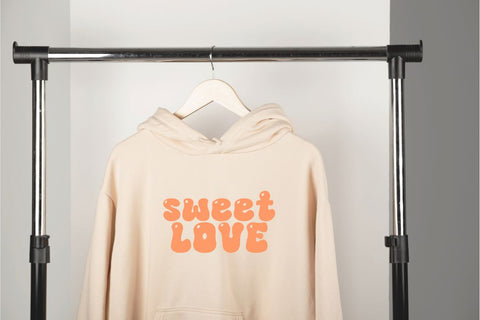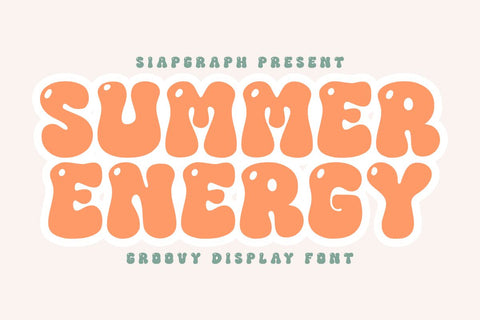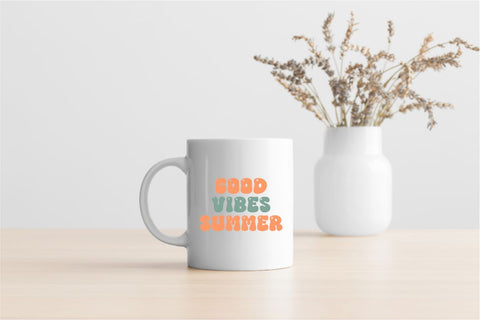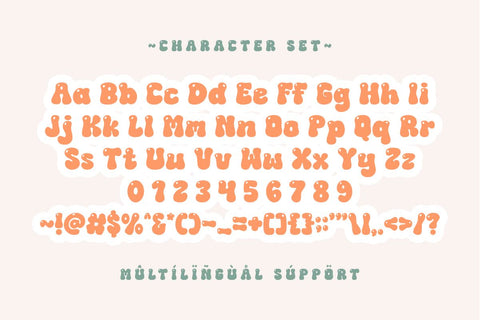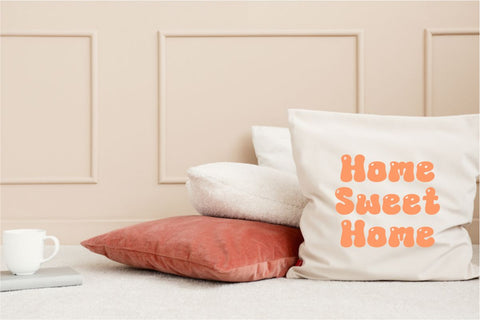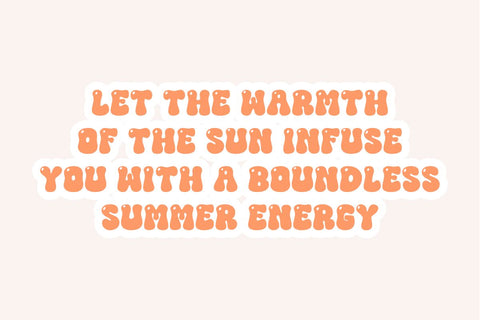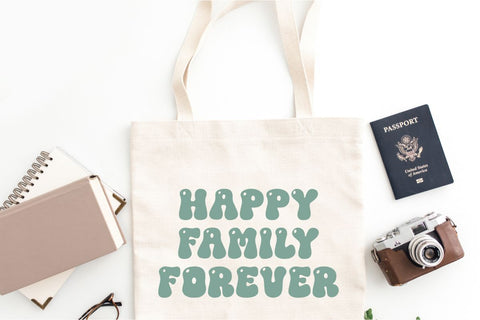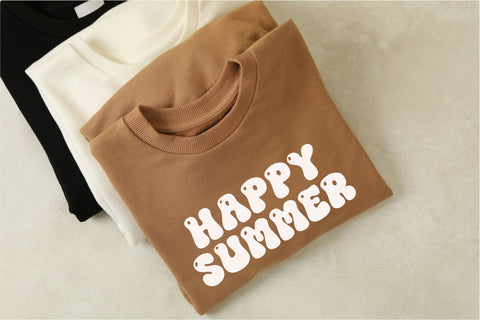
Summer Energy - Retro Groovy Font
Summer Energy is a vibrant and exhilarating groovy display font that radiates the warmth and cheerfulness of a sunny summer day. Its plump, rounded, and wonderfully soft letterforms evoke a nostalgic feeling of classic retro aesthetics, while maintaining a fresh and dynamic appeal. This font is perfect for infusing a dose of energetic fun and laid-back coolness into a wide array of creative projects. Imagine Summer Energy enhancing lively stickers, joyful planner elements for summer adventures, eye-catching t-shirt designs for beach trips, sweet product labels for seasonal treats, cheerful invitations for summer parties, personalized tumblers, and a plethora of other engaging crafts. Its distinctively bubbly and retro style makes it exceptionally well-suited for products targeting end-users who enjoy crafting with tools like Cricut and for sublimation projects, as well as for creating appealing stickers and planner elements with a truly unique and carefree flair. Summer Energy's unforgettable and lively character will ensure your creations stand out, bringing big smiles and endless good vibes to everyone who sees them, making every design feel like a perfect summer day.